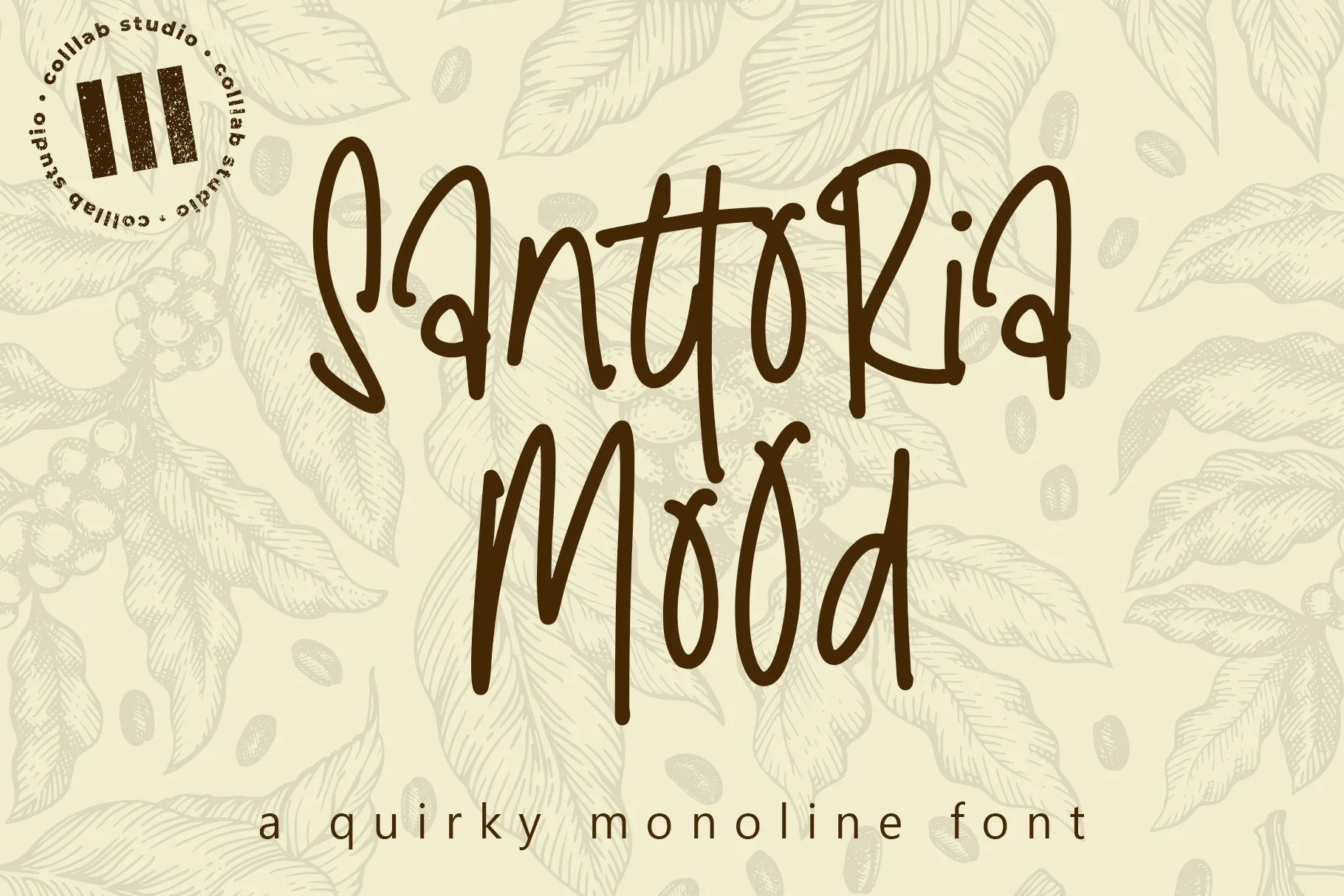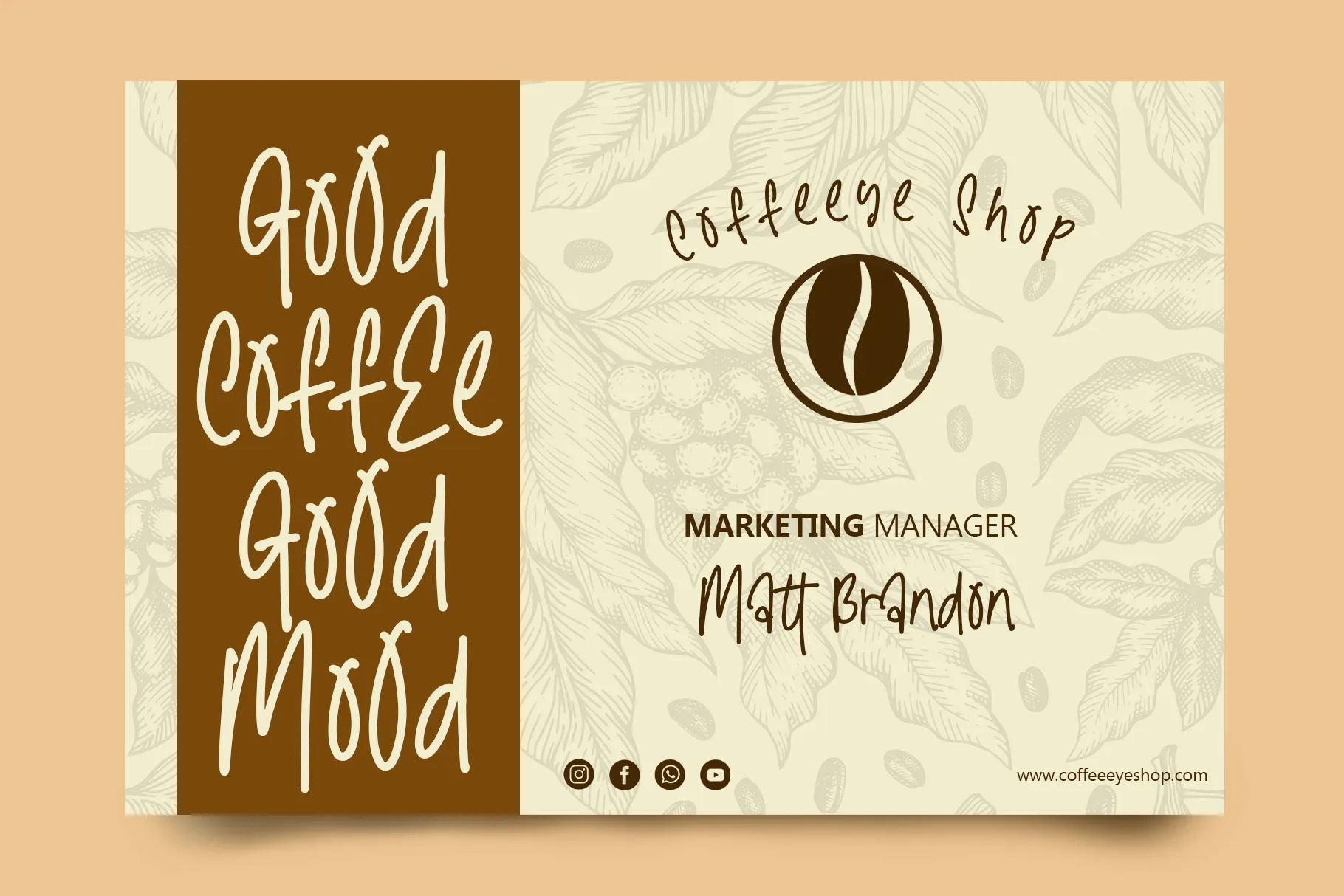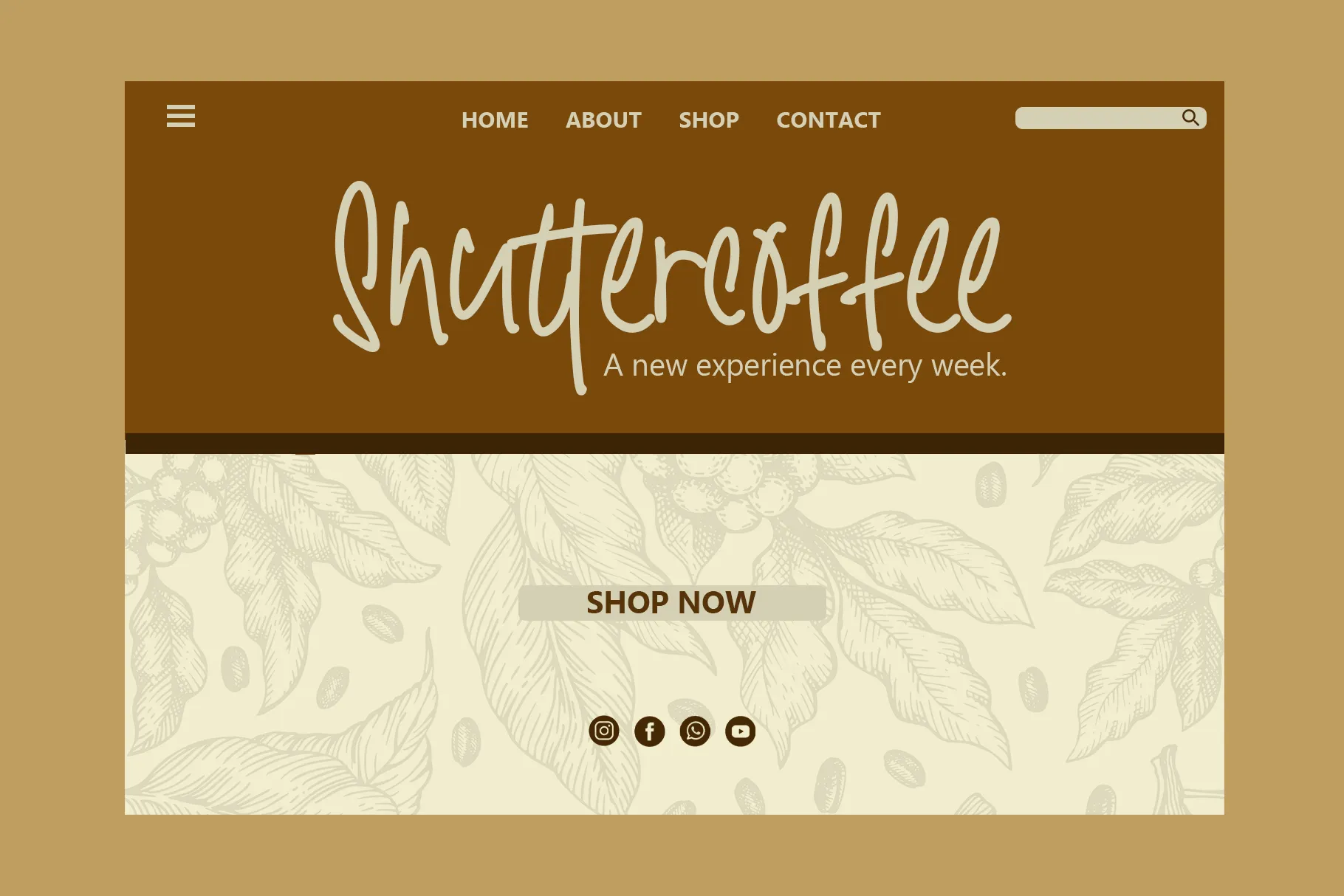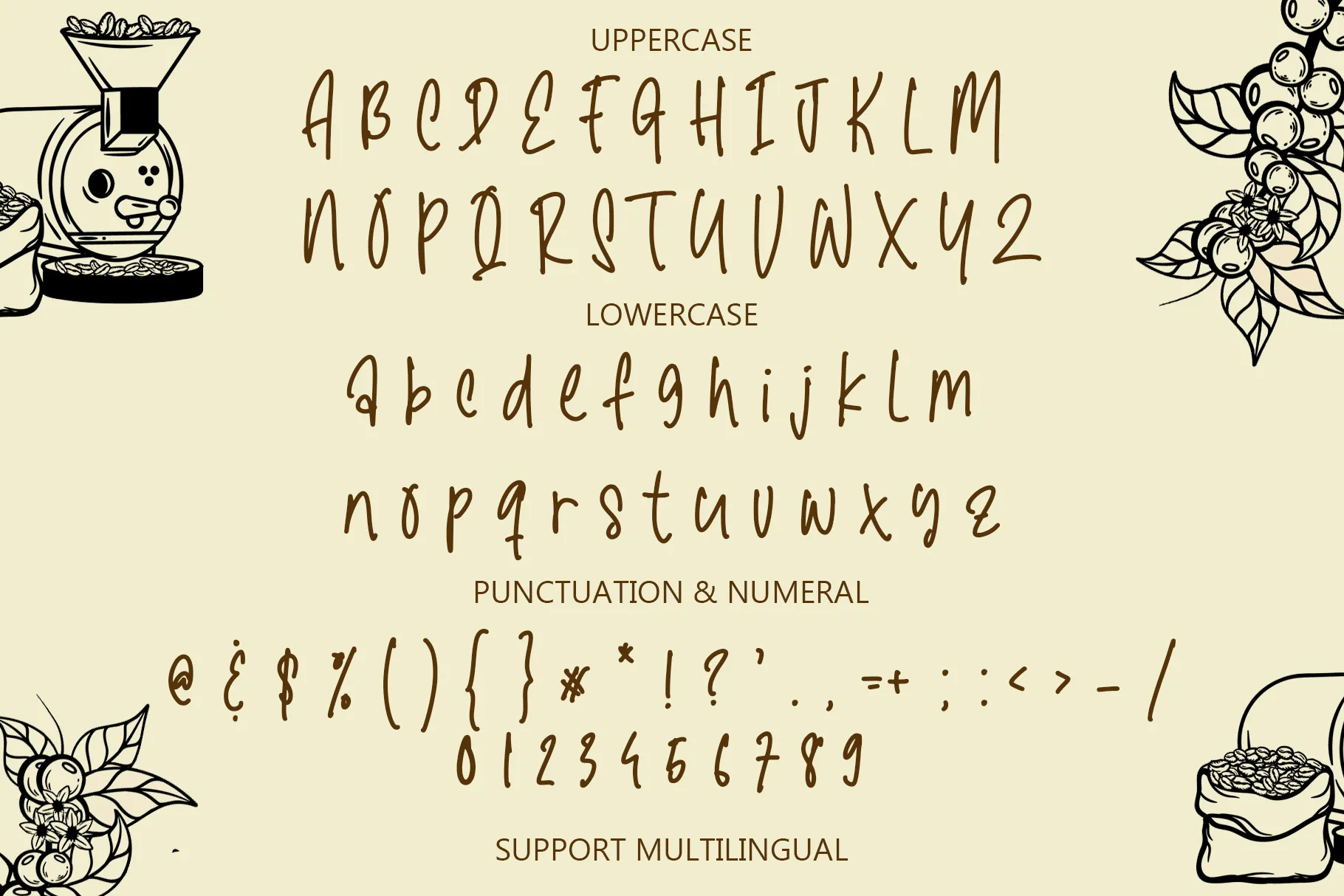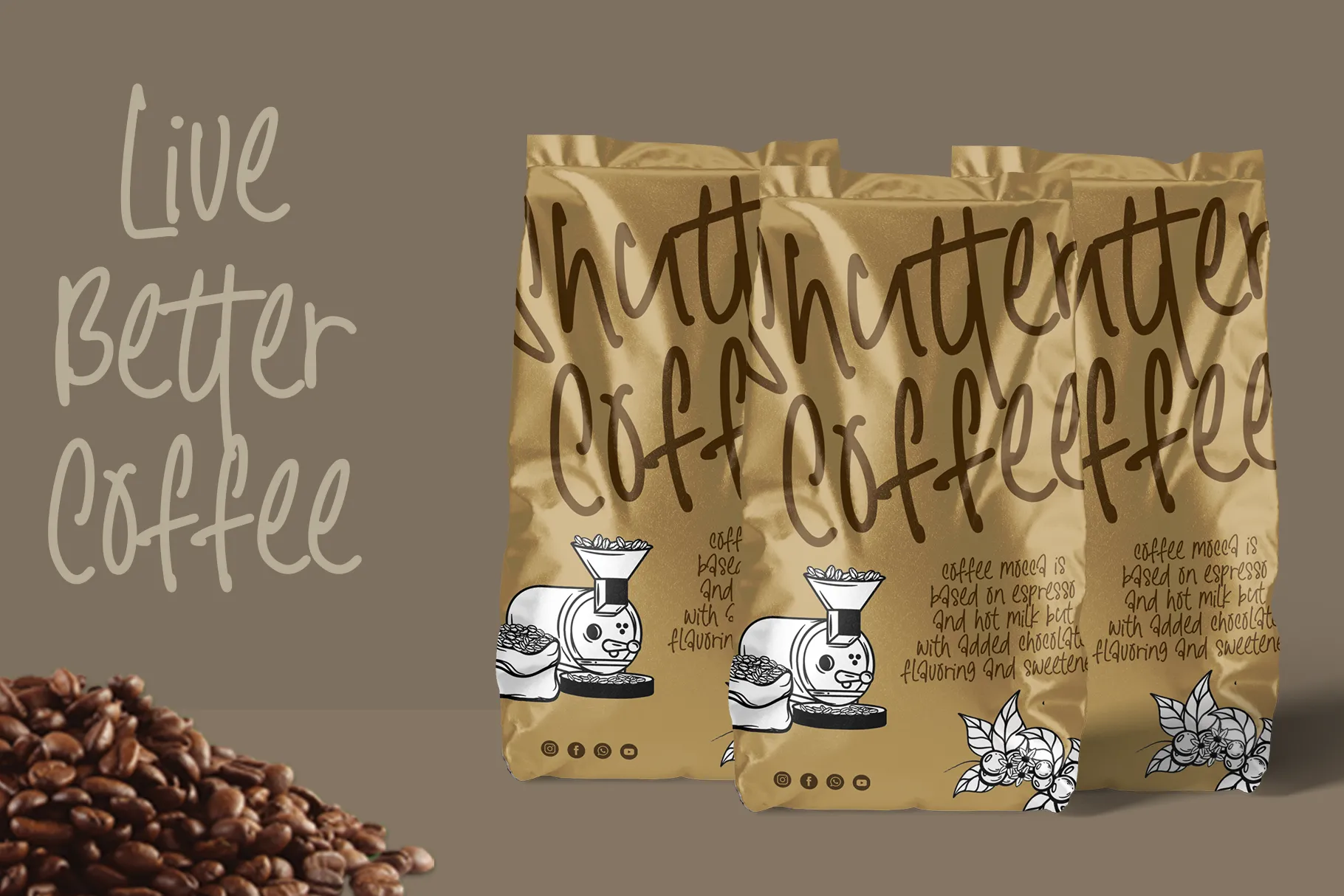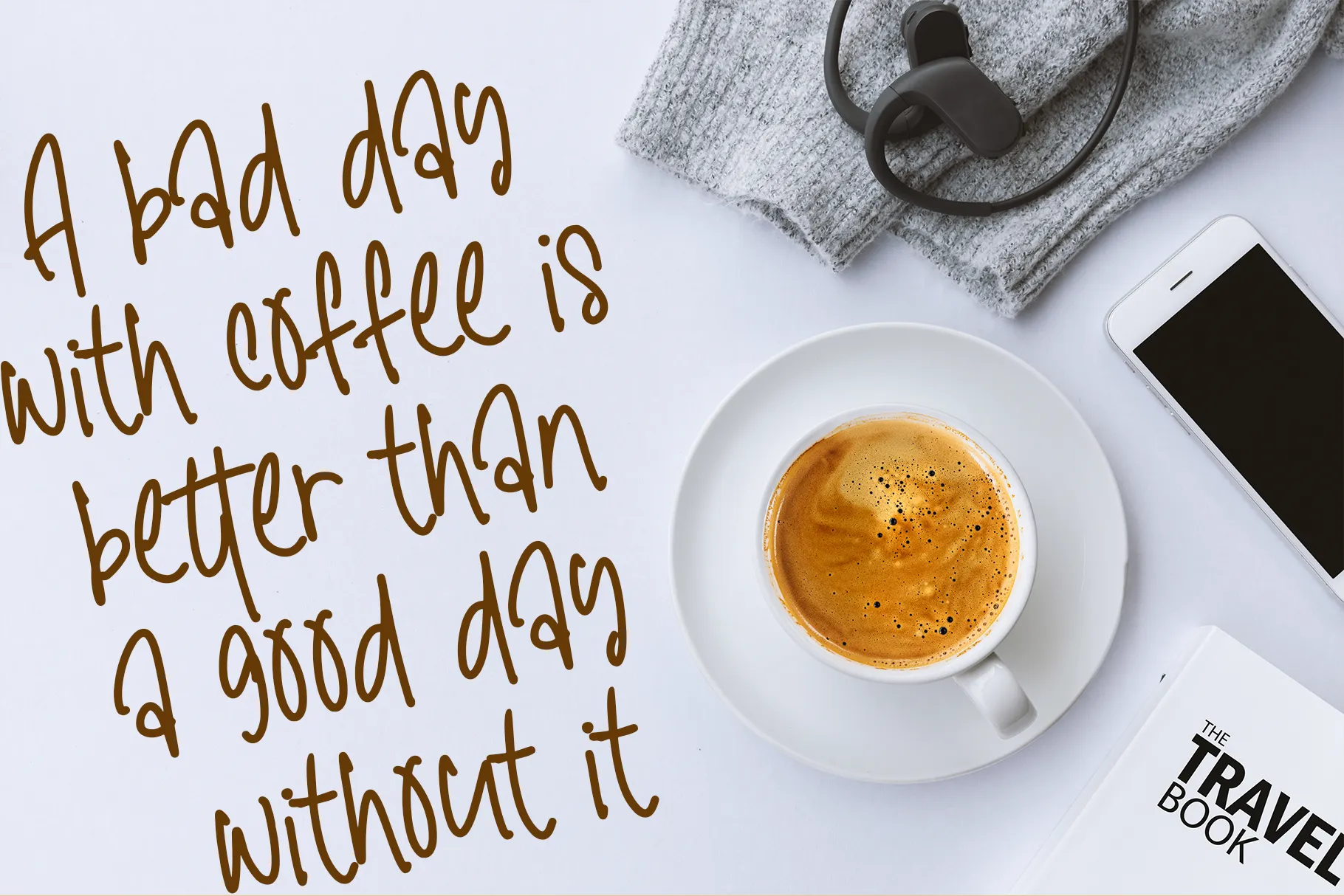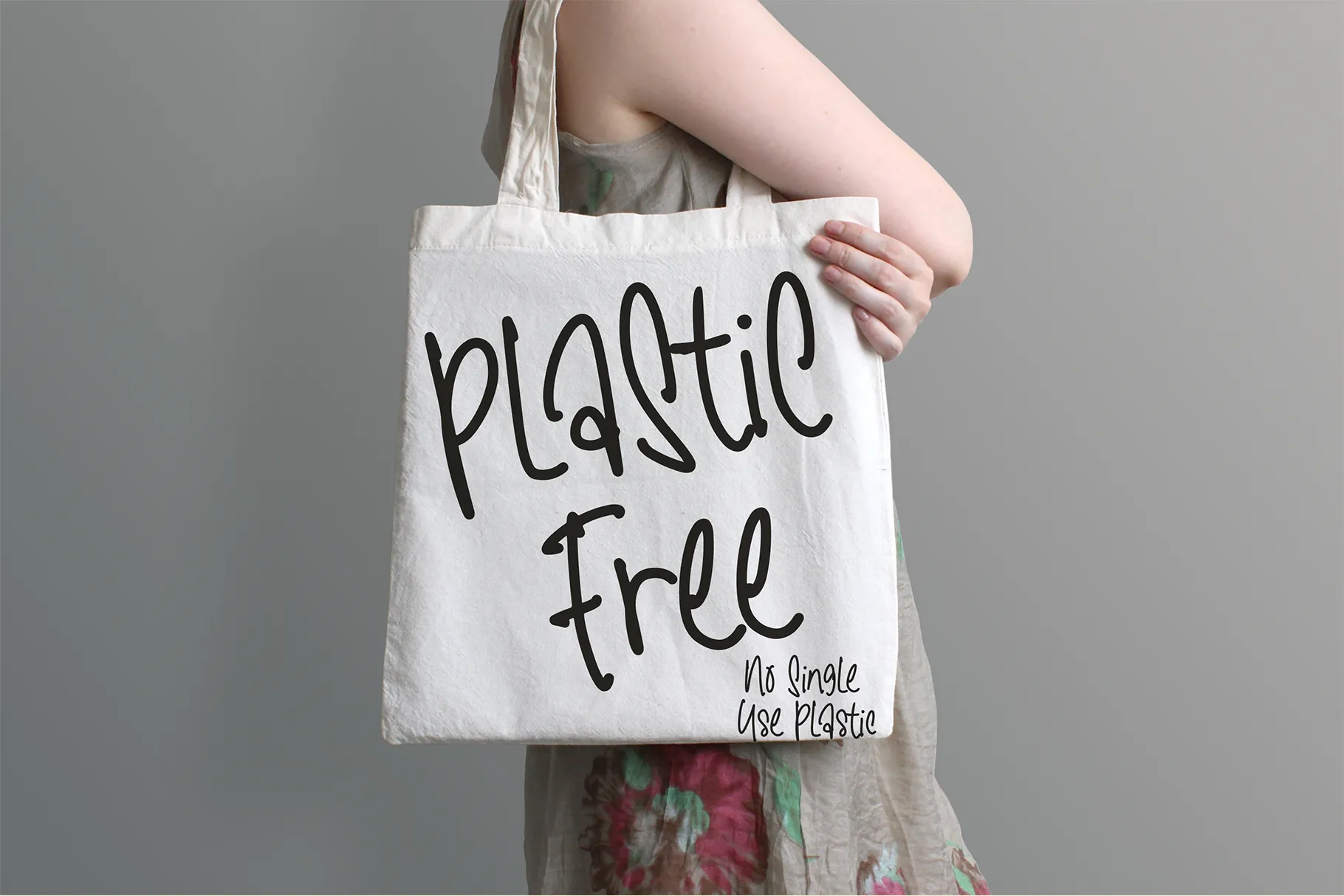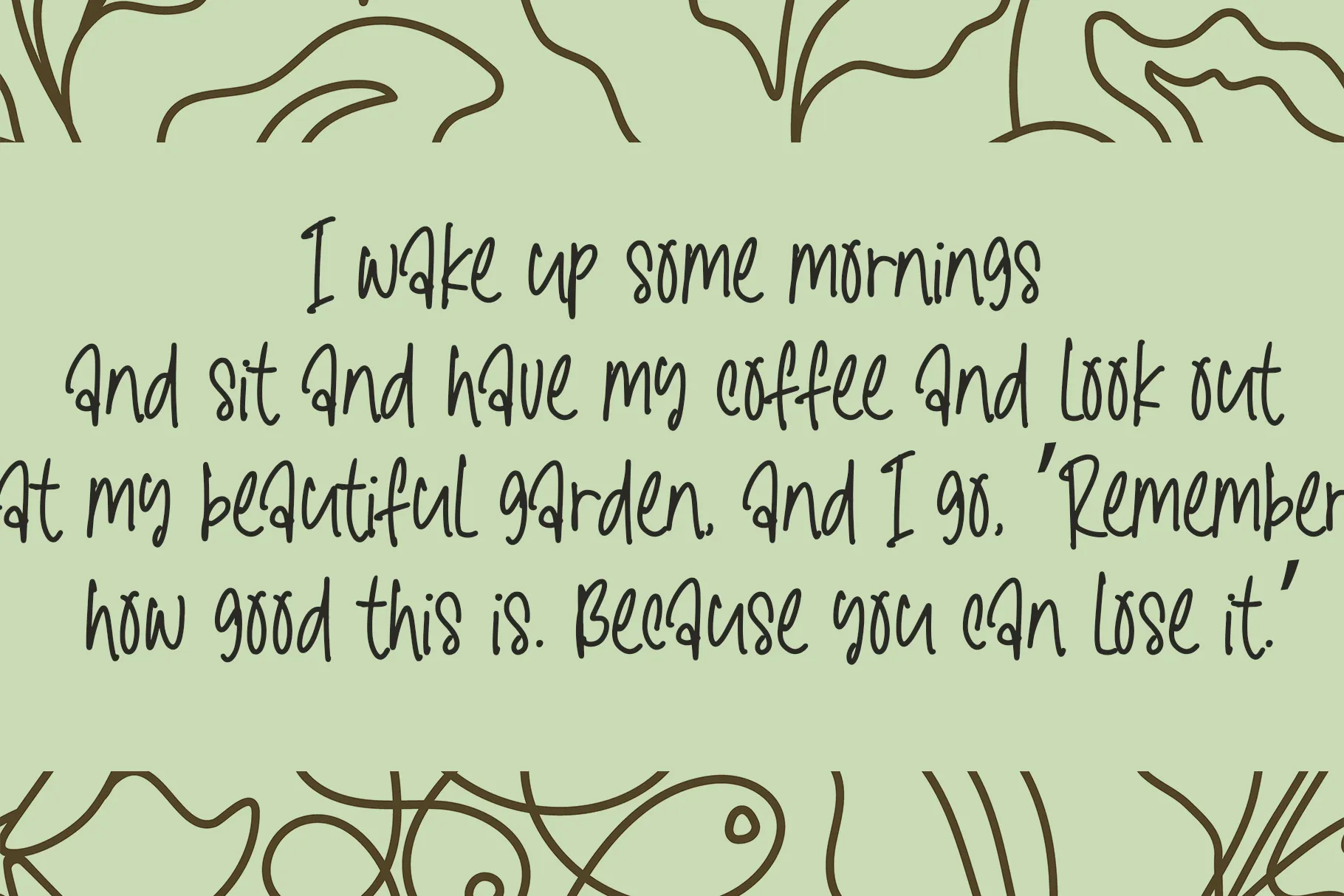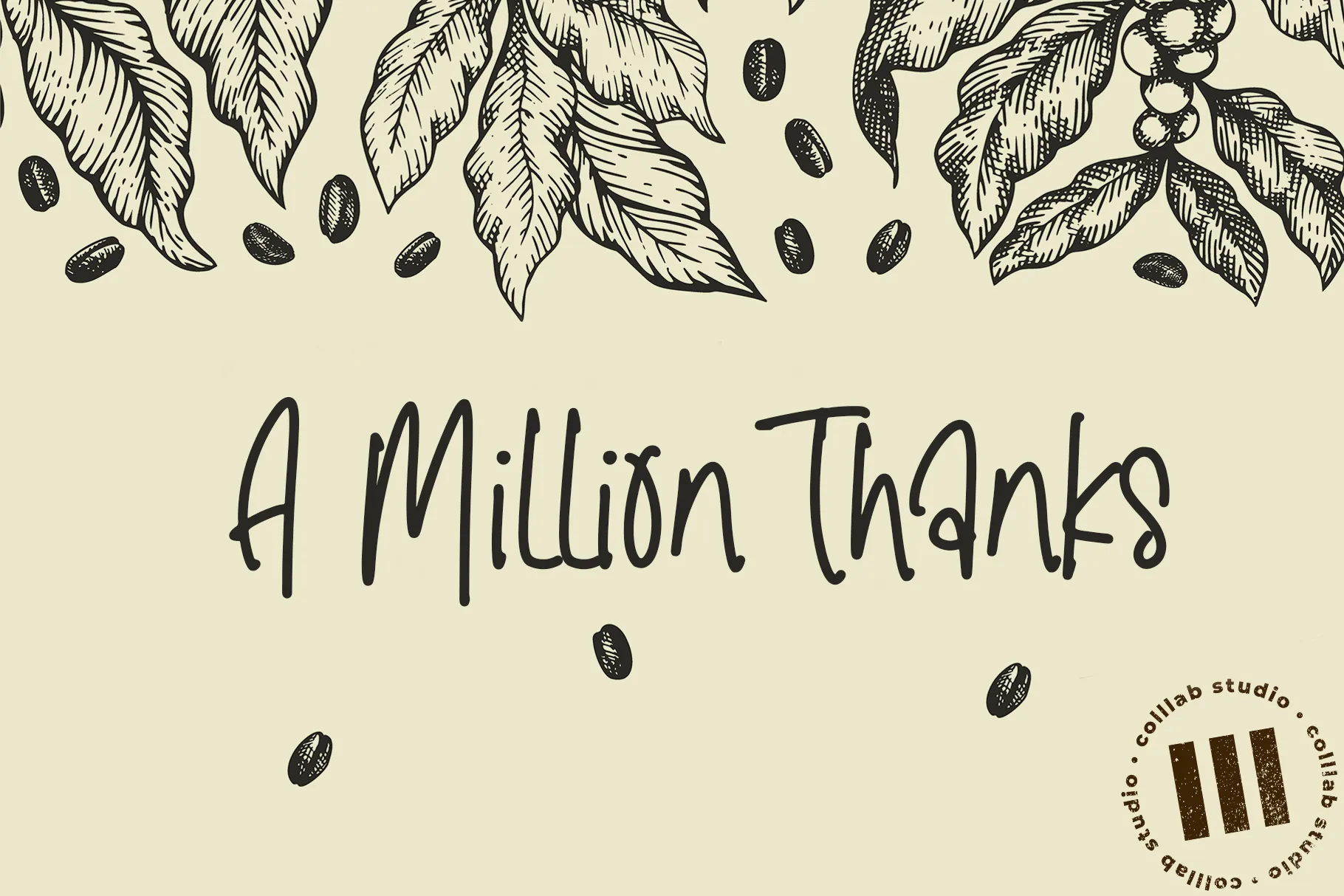
Santtoria Mood is a quirky monoline handwritten font that combines charm, playfulness, and modern style. With its slim, flowing strokes and slightly irregular baseline, this typeface feels natural and expressive—perfect for projects that need a casual yet stylish handwritten look.
From wedding invitations and thank you cards to quotes, logos, and product packaging, Santtoria Mood delivers personality and creativity to any design. Its versatile style makes it equally suited for feminine branding, lifestyle blogs, and boutique businesses that want to stand out with a unique voice.
Full uppercase + lowercase characters
Numbers & punctuation included
Decorative ligatures for a handwritten flow
Multilingual support
Wedding invitations & stationery
Trendy logos & feminine branding
Lifestyle blogs & social media graphics
Greeting cards & inspirational quotes
Boutique product packaging & labels
Santtoria Mood is inspired by the ease and spontaneity of handwriting with a fine pen. Its quirky monoline structure captures both simplicity and personality, making it the perfect choice for creatives who want a balance of casual elegance and handcrafted style.
Santtoria Mood is a quirky monoline handwritten font that combines charm, playfulness, and modern style. With its slim, flowing strokes and slightly irregular baseline, this typeface feels natural and expressive—perfect for projects that need a casual yet stylish handwritten look.
From wedding invitations and thank you cards to quotes, logos, and product packaging, Santtoria Mood delivers personality and creativity to any design. Its versatile style makes it equally suited for feminine branding, lifestyle blogs, and boutique businesses that want to stand out with a unique voice.